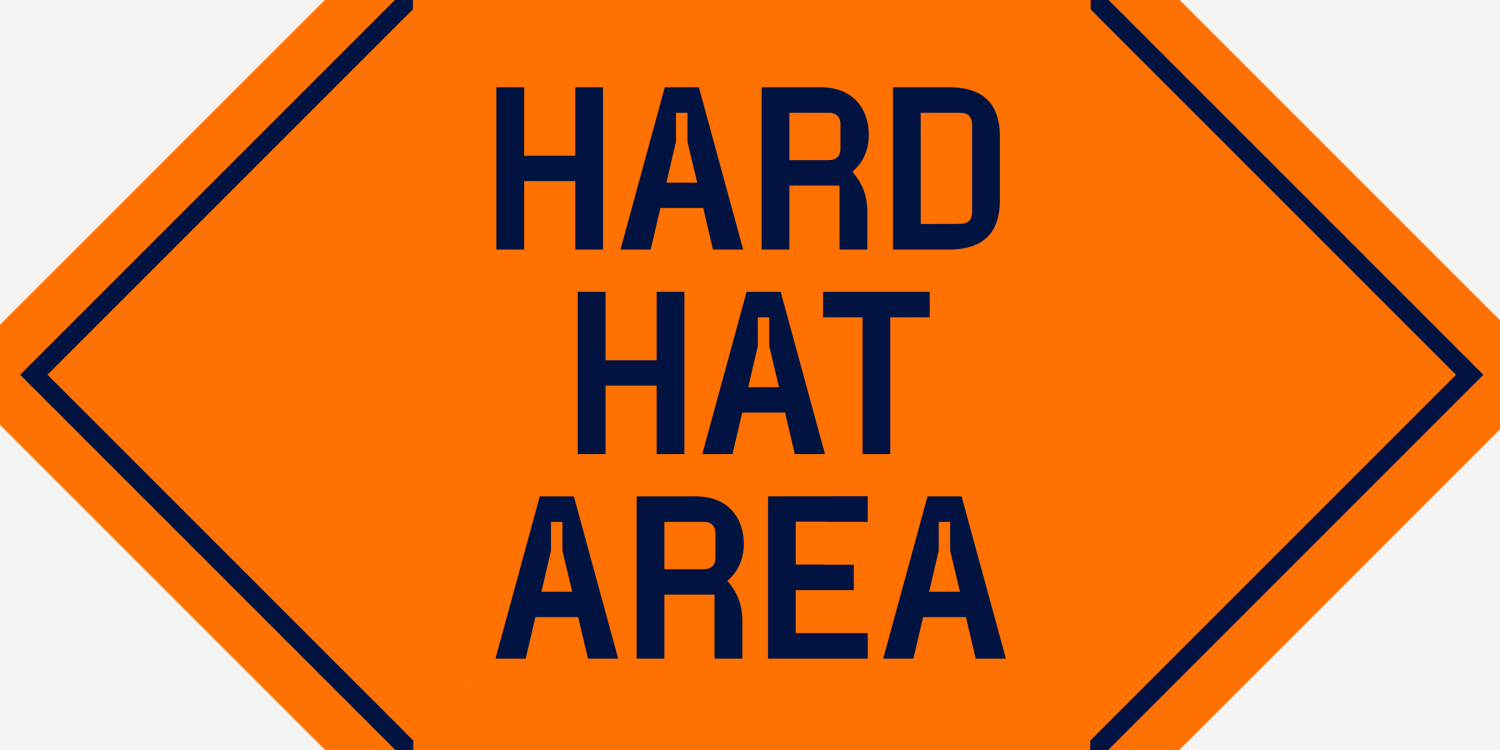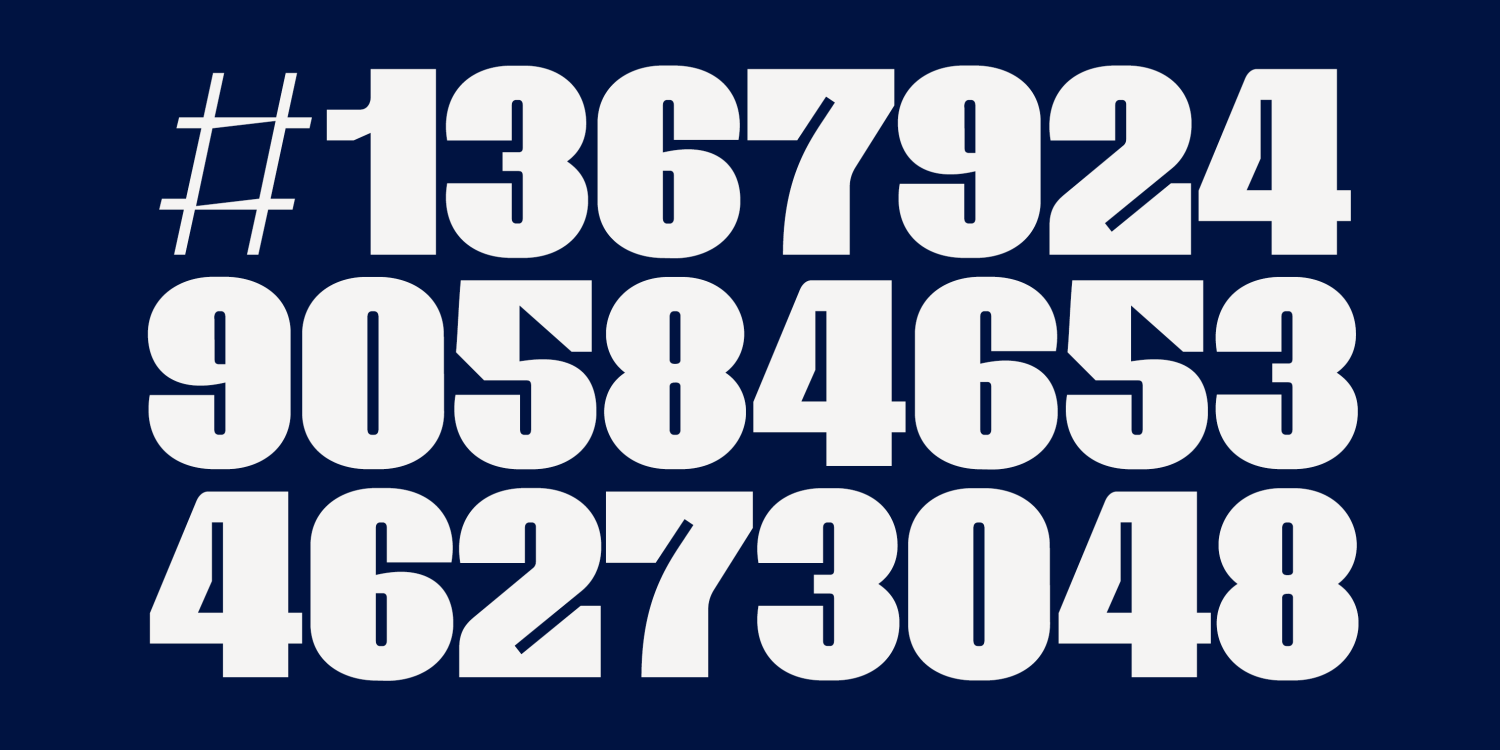
About Gaffeur Rounded
Gaffeur is a modern and refined take on a traditional typographic genre, one common to improvised signs, liveries and sports jerseys. Curves are traded for angles, glyph widths are standardized–particularly in the numerals–and constructed around the…